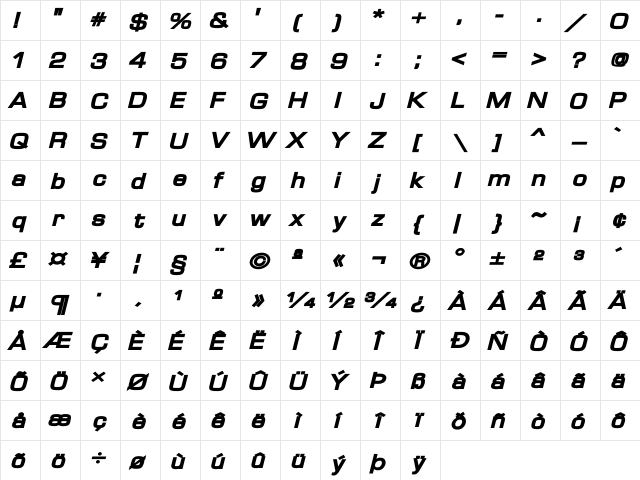
Waukegan LDO Extended Black Oblique
| Foundry | LDO Fonts |
| Designer | Luke Owens |
Design Context for Waukegan LDO Extended Black Typeface
Waukegan LDO Extended Black offers clean, dependable letterforms without strong stylistic allegiance, making it a practical choice for designers who need flexibility. The slanted form adds forward momentum and visual energy.
Pro Tip: Try Waukegan LDO Extended Black for annotation and caption copy alongside an upright companion — the contrast in angle creates a dynamic but ordered typographic system.